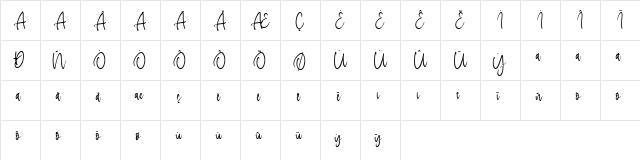
Singaparna Script Regular
Design Context for Singaparna Script Typeface
Singaparna Script flows with the natural rhythm of handwritten lettering, making it ideal for designs that call for warmth and personal expression.
Font Pairing: Combine Singaparna Script with a simple geometric sans for maximum contrast — the tension between flowing curves and clean structure is a classic typographic pairing.
Pro Tip: Use Singaparna Script for short runs of text — names, titles, or taglines. Extended body copy in script faces tires the eye quickly.